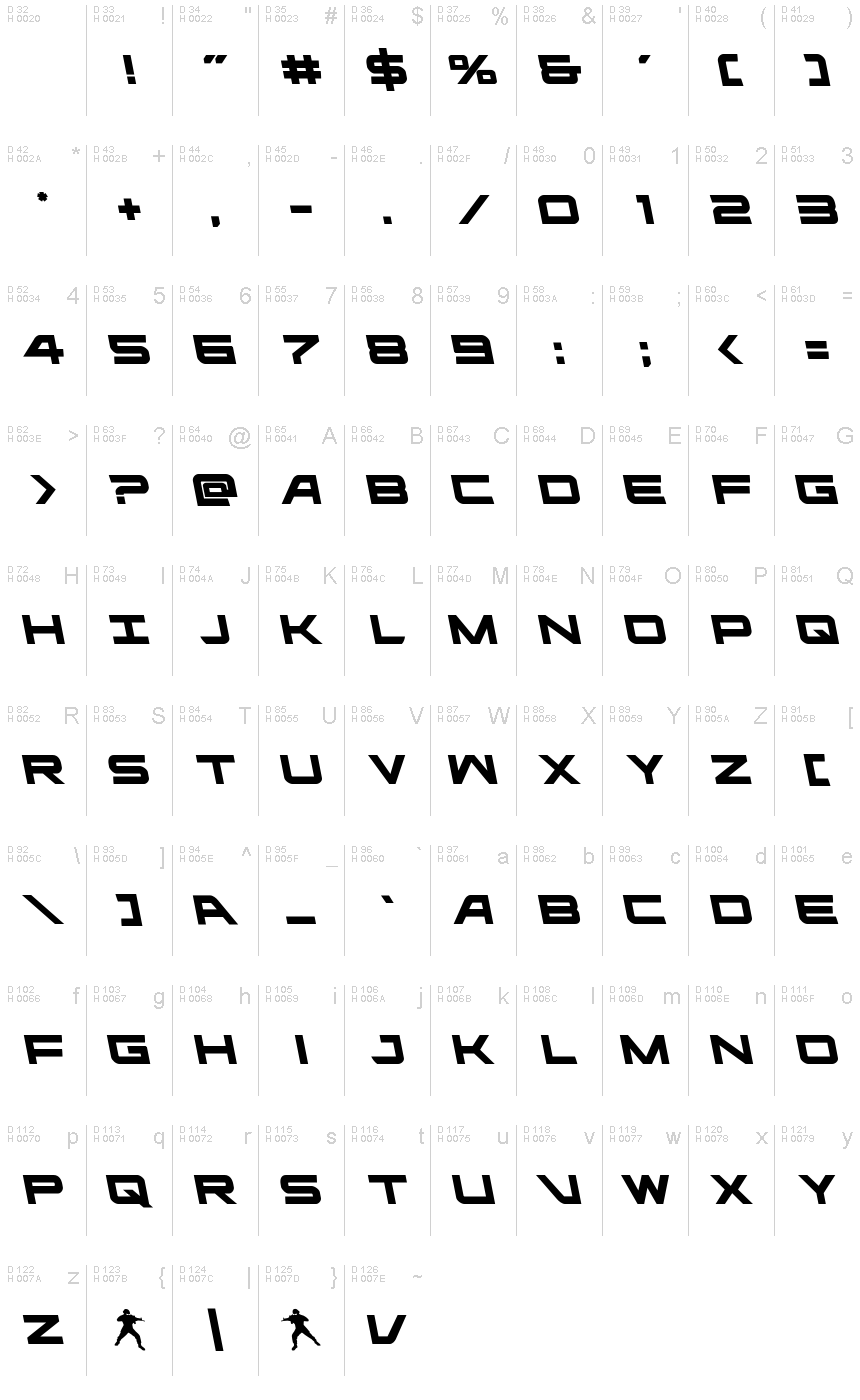
Ghost Clan Semi-Leftalic emerges from the creative vision of Iconian Fonts as a display typeface that embodies a futuristic aesthetic. Its expanded form exudes an assertive presence, making it stand out with an almost architectural grandeur. The bold slant of each character adds dynamism, suggesting motion and forward-thinking, while maintaining readability.
This typeface finds its niche in design spaces that require a touch of the avant-garde without sacrificing clarity. Ideal for gaming interfaces, tech startups branding, or any project seeking a modern twist, Ghost Clan Semi-Leftalic is poised to give titles and headers an edge that propels them into tomorrow's design landscape.